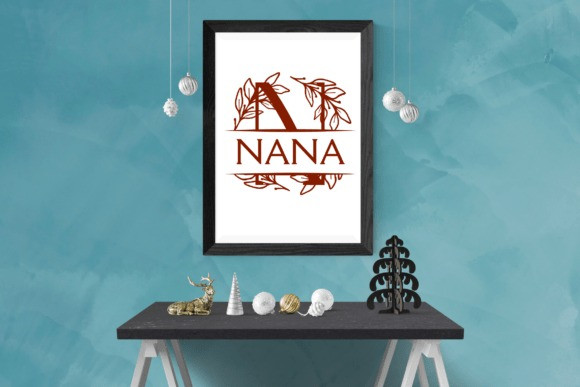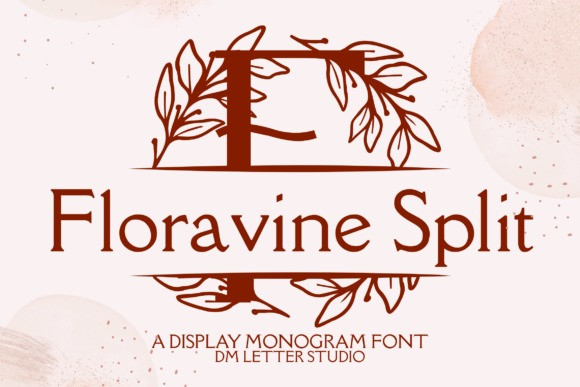
Floravine Split Monogram Font
Floravine Split Monogram Font turns simple initials into graceful floral-vine emblems with a clean center split for names, dates, or short words. The strokes are smooth and balanced, so letters stay clear at any size. Because counters remain open and curves stay clean, tiny tags print crisply while large signage looks elegant and premium. Use it for wedding suites, boutique logos, keepsake gifts, wax seals, stationery, and luxury packaging. As a result, your designs feel personalized and gift-ready in minutes.